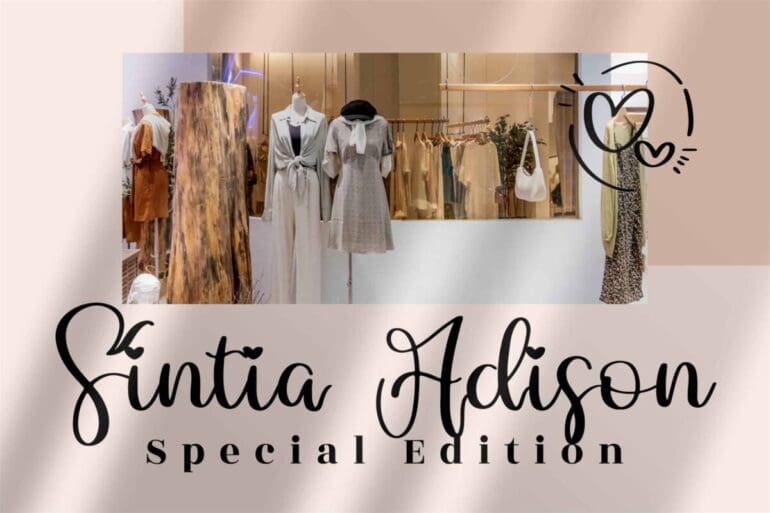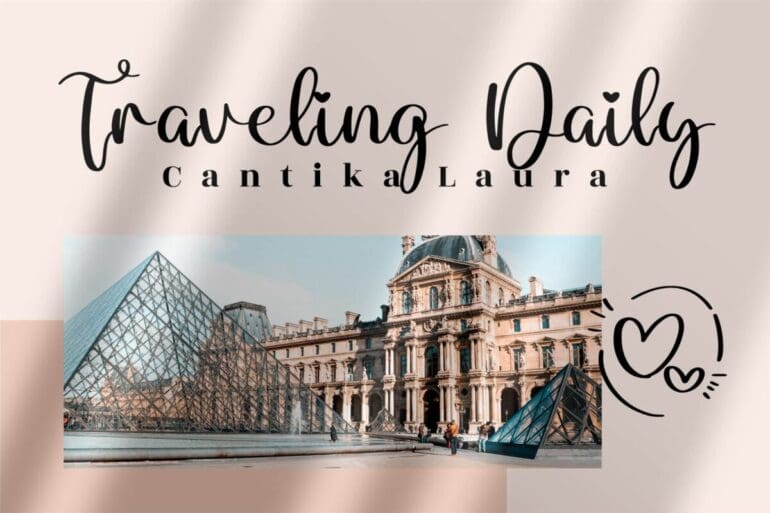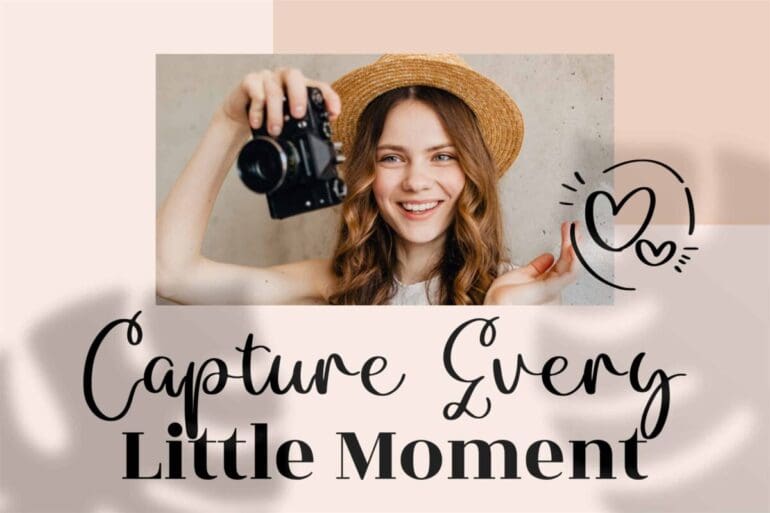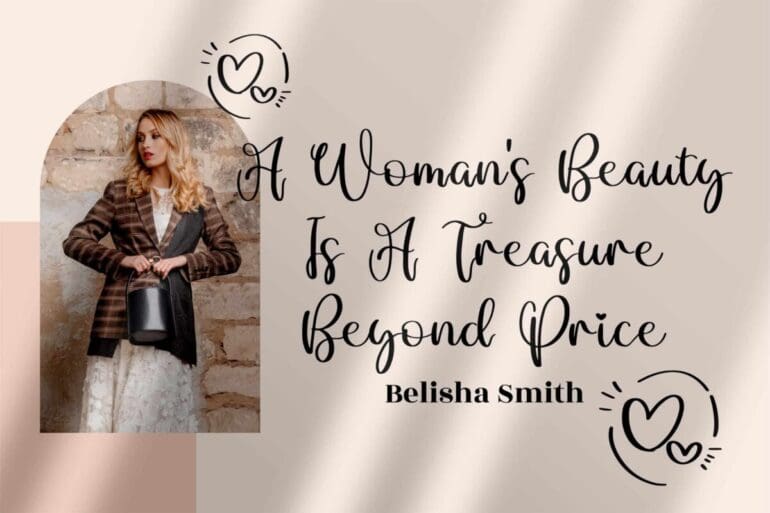
Marlyta Lovely Font
Marlyta lovely is a romantic Calligraphy Font featuring cute doodles and characters that impress! It is suitable for product packaging, quotes, name cards, labels, photography, and so much more! This font is PUA encoded which means you can access all of the glyphs and swashes with ease!